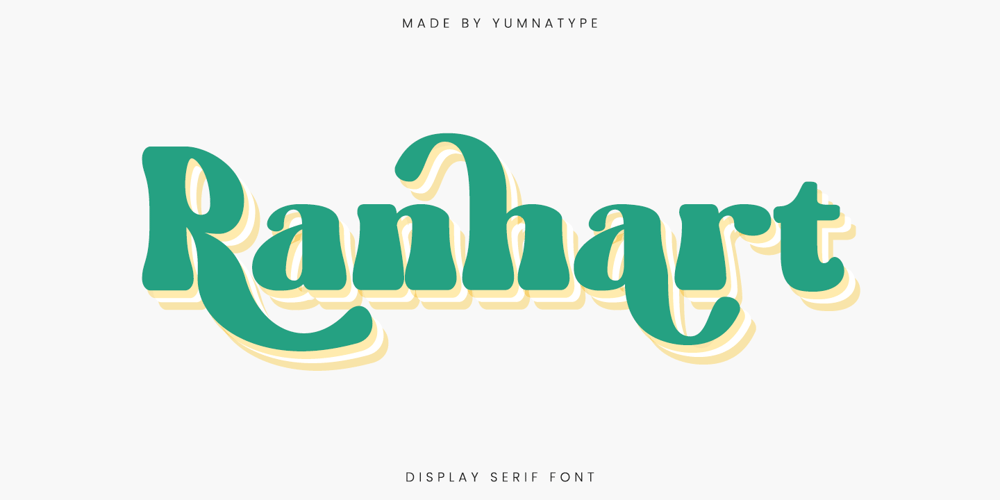
Ranhart
Ranhart font
Ranhart Font Family was designed by Donis Miftahudin and published by Yumna Type. Ranhart contains 1 styles and family package options. Ranhart is a delightful serif font that blends a playful style with a balanced weight. Not too thick, its visible contrast and rounded shapes create a charming and approachable look. This font’s distinctive characteristics makes it an excellent choice for projects that require a blend of sophistication and playfulness, ensuring your message stands out with grace and joy. In addition, enjoy the features here.Features: Alternates Multilingual Supports PUA Encoded Numerals and Punctuations Ranhart fits in headlines, logos, posters, flyers, branding materials, print media, editorial layouts, and many more designs. Find out more ways to use this font by taking a look at the font preview.Thanks for purchasing our fonts. Hopefully, you have a great time using our font. Feel free to contact us anytime for further information or when you have trouble with the font. Thanks a lot and happy designing.